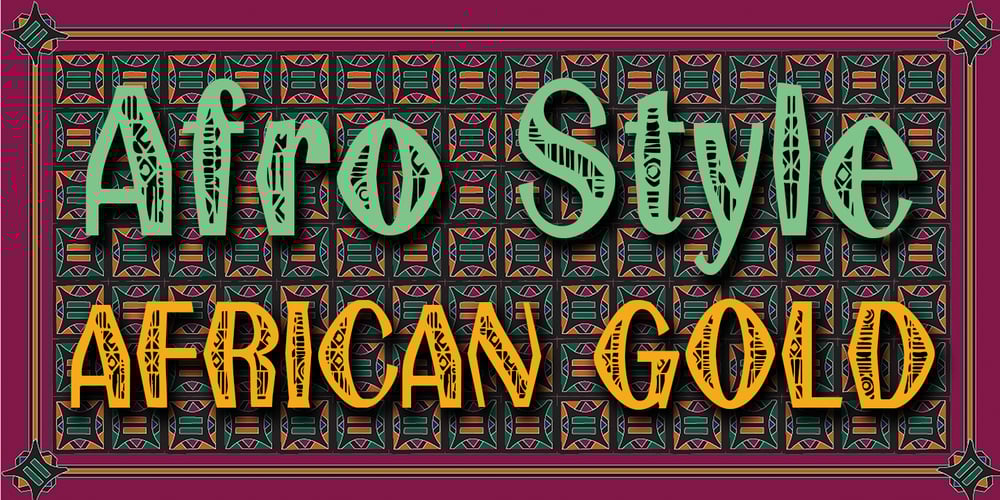
African Gold
African Gold font
African Gold Font Family was designed by Anton Scholtz and published by Scholtz Fonts. African Gold contains 1 styles and family package options. The name African Gold is associated with Johannesburg, the “City of Gold”; (the Zulu name for Johannesburg is eGoli). The font was so named for two reasons: the intricate African patterns within the characters of the font suggest the shafts and tunnels of a gold mine, and, as with a gold mine, the richness lies within. African Gold is a display font that is best used at larger sizes, however, it contains a full character set with all accents, special characters, diacritical marks and all the characters are carefully spaced and kerned. The numerals are mono-spaced so that they will line up correctly in columns of figures. The letters of the alphabet are spaced according to their width and are carefully kerned to create an attractive appearance.